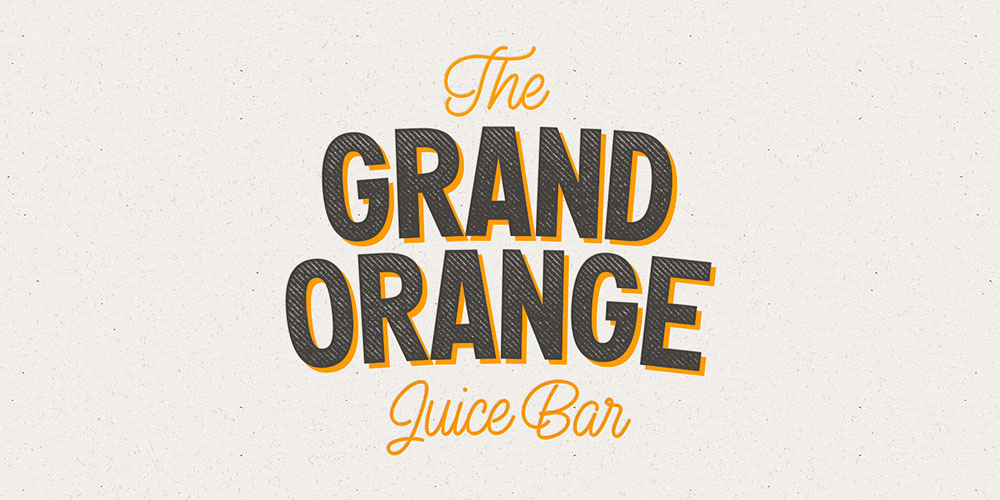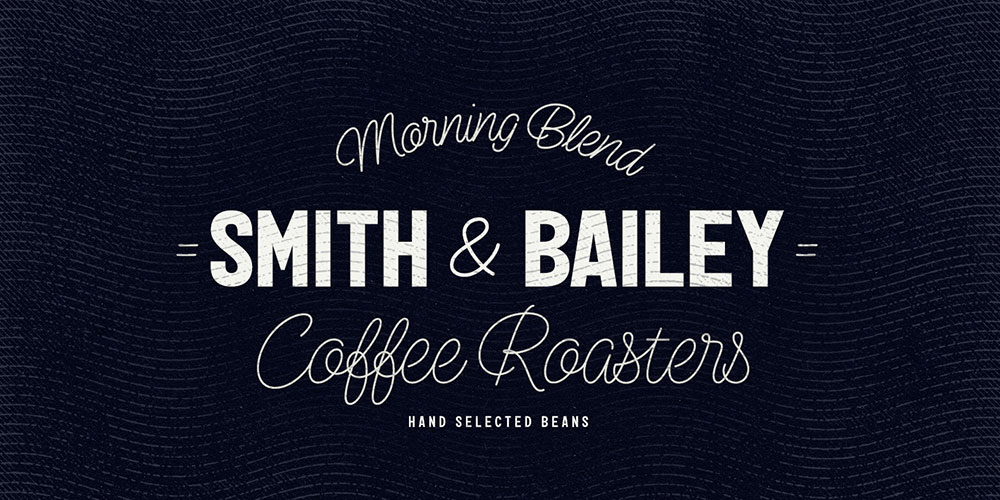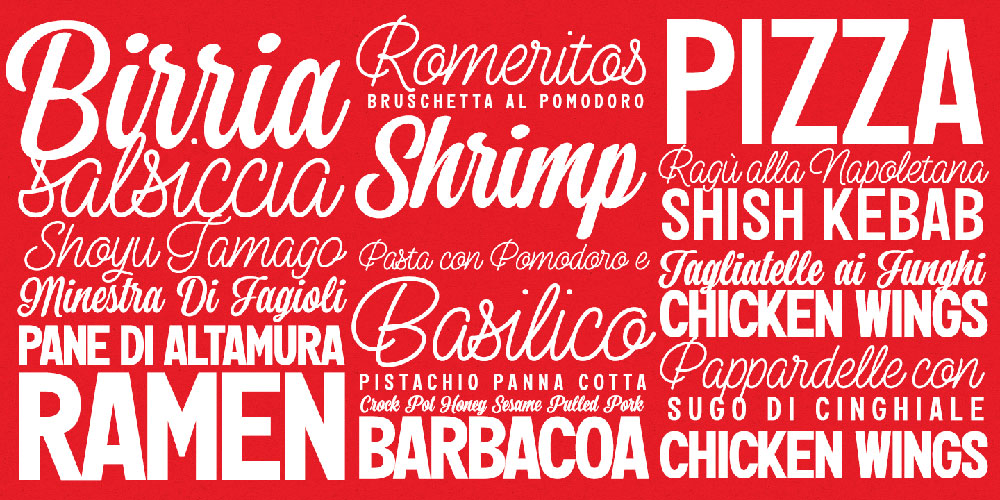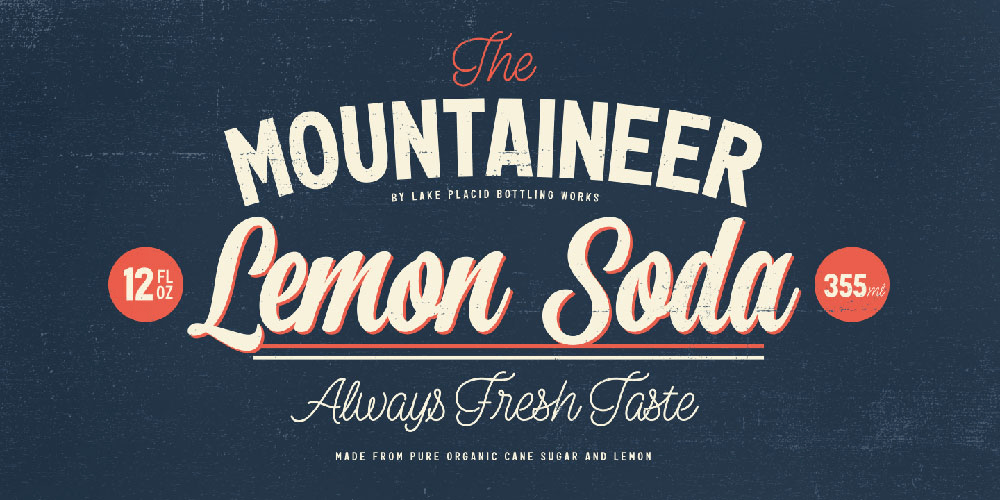
About Perfume
Perfume – a luxurious display pack. Perfume is a display combo pack of three styles and eight fonts. Perfume fonts are soft and clean and they have a distinguishable character. Perfume Pen is a monoline script with three weights and large x-height.…